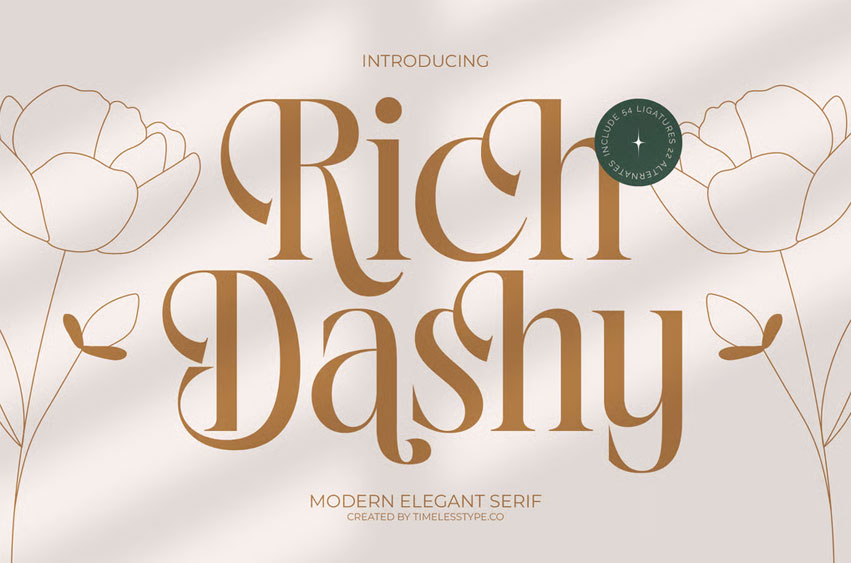
Rich Dashy Font is a modern, elegant serif font designed to exude luxury, charm, and sophistication. Featuring 54 ligatures and 22 alternates, this typeface perfectly balances graceful curves with bold structure — making it ideal for branding, editorials, invitations, and premium packaging.
With its refined proportions and stylish flow, Rich Dashy brings timeless to any project. Each character reflects artistic precision and elegance, making this font a perfect choice for high-end designs that value both class and creativity.